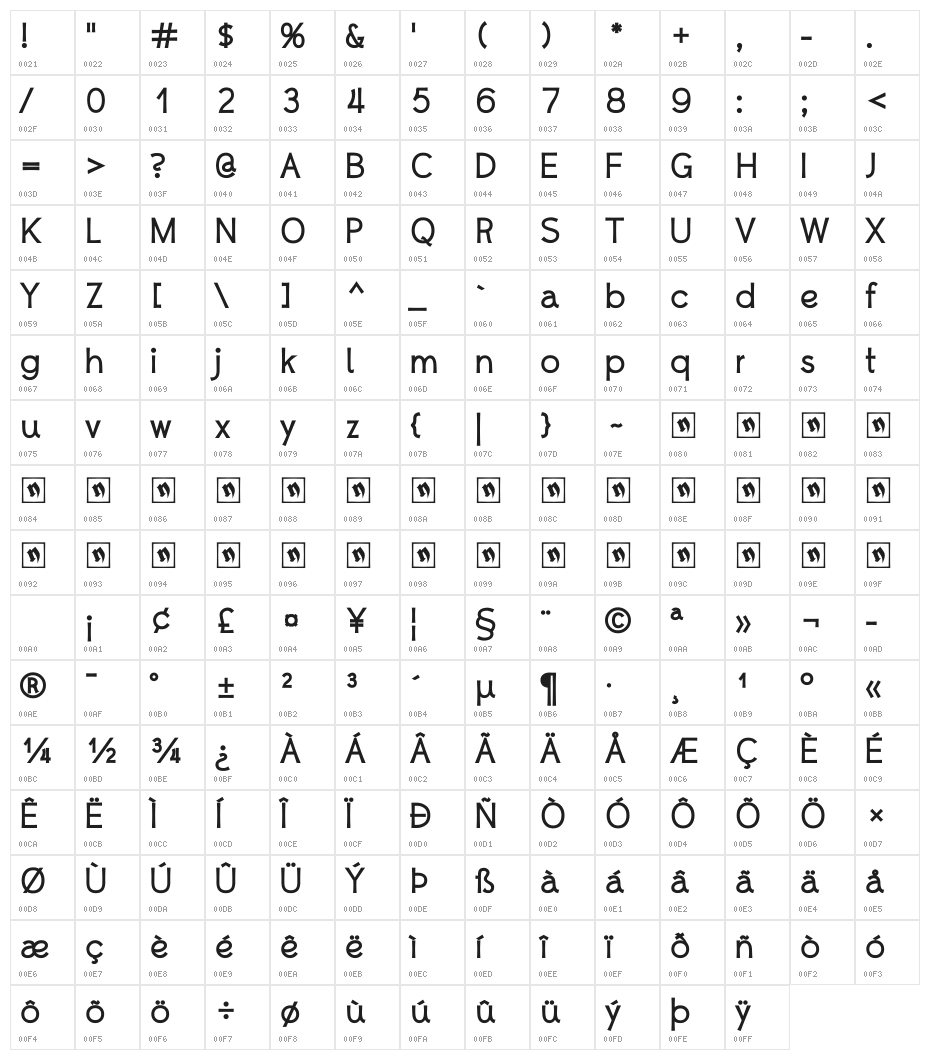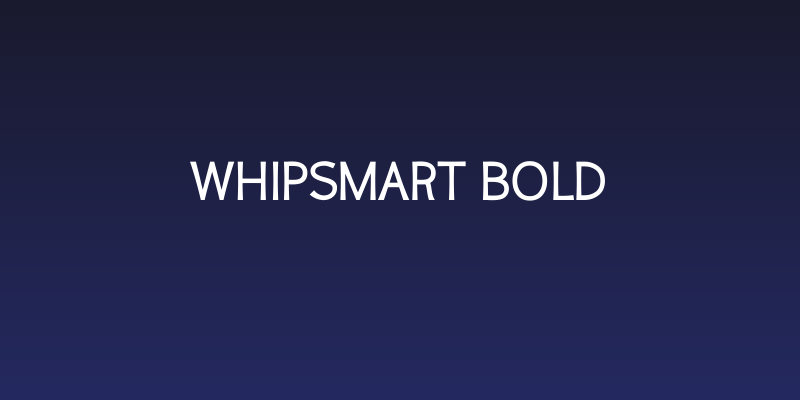
Whipsmart Bold Font
Whipsmart Bold Description
This font features a clean and modern sans-serif design with bold, uniform strokes that provide a strong visual impact. The characters are well-proportioned, offering a harmonious balance between height and width. The uppercase letters are slightly taller than the lowercase, enhancing readability. The numerals are clear and distinct, making them suitable for various applications. Special characters are well-integrated, maintaining the overall aesthetic of the font. The design is versatile, making it suitable for both digital and print media.
Use CaseHeadlines, Logos, Branding
Proposed ProjectsIdeal for branding, advertising, headlines, and digital content where a modern and bold statement is needed.